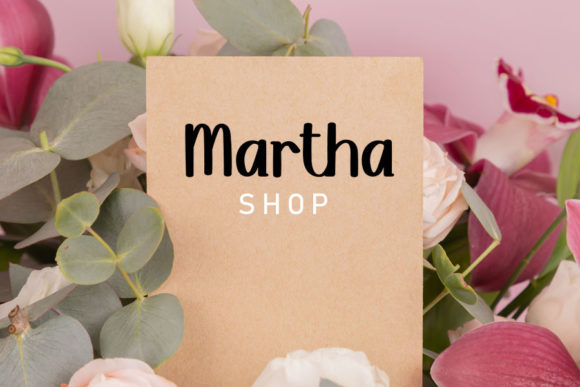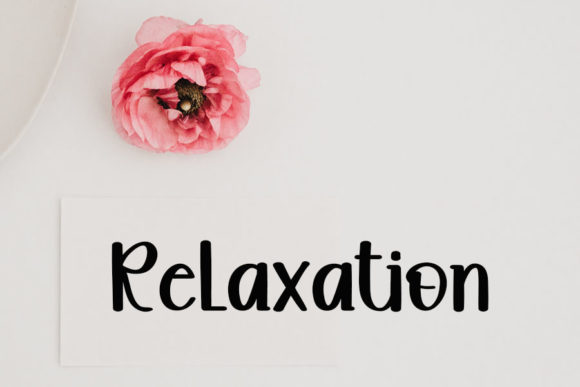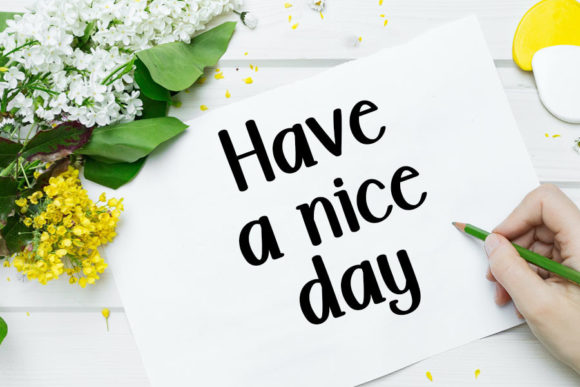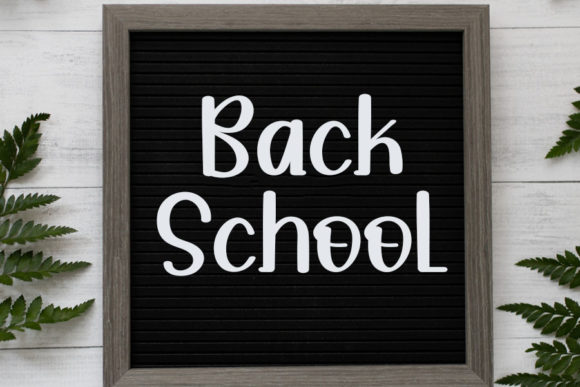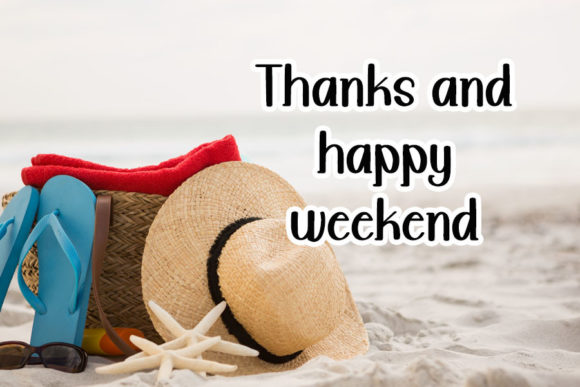
Unleash Your Creativity with the Whimsical Butterflies Font
Enter the delightful Butterflies Font, a well-balanced and cheery script font designed to transport your creative ideas to new heights. Whether you’re crafting calligraphy scripts for DIY projects or searching for fonts to elevate your Instagram aesthetic, this charming font is sure to make your designs shine. With its delicate touch and versatility, the Butterflies Font is an invaluable asset for designers seeking to add a touch of whimsy to their work.
Butterflies Font Key Features
- Font Family: A unique, hand-drawn font with a whimsical and playful feel, ideal for creative projects and designs.
- Unique Characteristics: Features intricate, hand-drawn details and subtle texture, adding a touch of elegance and sophistication.
Butterflies Font Review
Overall, I have mixed feelings about the Butterflies Font. It’s a unique and whimsical font that could be perfect for certain projects, but it also has its limitations.
- The font’s playful and delicate feel makes it ideal for children’s books, wedding invitations, or any project that requires a touch of elegance.
- The Butterflies Font has a clear and readable structure, making it suitable for body text as well as headings.
- The font’s versatility allows it to work well in both digital and print formats.
- The font may be too cursive or ornate for projects that require a more straightforward or modern aesthetic.
- The Butterflies Font may not be suitable for projects that require a high level of professionalism or sophistication.
- The font’s intricate details may not translate well to very small font sizes.
The Butterflies Font is a fun and creative option that can add a touch of whimsy to your designs. However, it’s essential to consider the project’s tone and requirements before choosing this font. With some restraint and careful selection, the Butterflies Font can be a great addition to your design toolbox.
Getting the Most Out of “Butterflies Font”
For optimal results, use “Butterflies Font” in conjunction with a pastel color scheme and soft textures to create a whimsical and dreamy atmosphere.
Experiment with different font sizes and styles to create visual interest and hierarchy in your design.
“Butterflies Font” is ideal for:
- Children’s book covers and illustrations
- Blog and social media graphics
Great Vibes Font is a modern, cursive font that’s perfect for adding a touch of sophistication and elegance to your designs. It’s ideal for use in titles, headings, and quotes. Great Vibes Font is similar to Butterflies Font in its cursive style, but it has a more contemporary and sleek feel to it.
Carolyna Pro Font is a beautiful, modern script font that’s perfect for creating a luxurious and high-end feel. It’s great for use in titles, headings, and body text. Compared to Butterflies Font, Carolyna Pro Font has a more refined and sophisticated feel to it, making it perfect for designs that require a premium and exclusive tone.